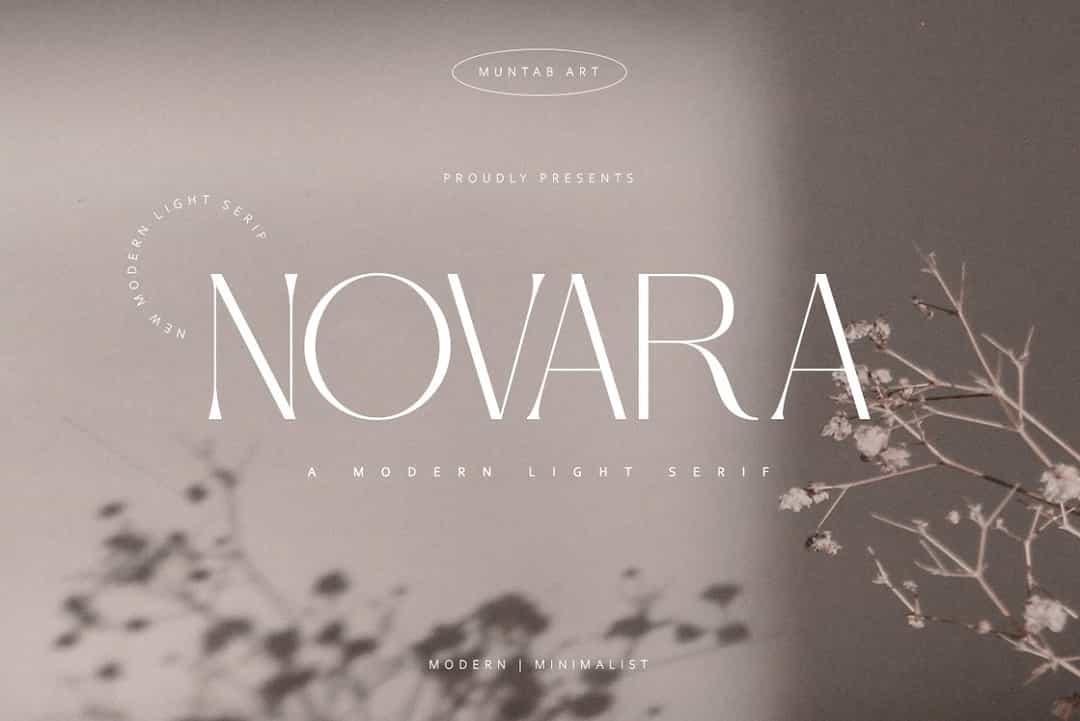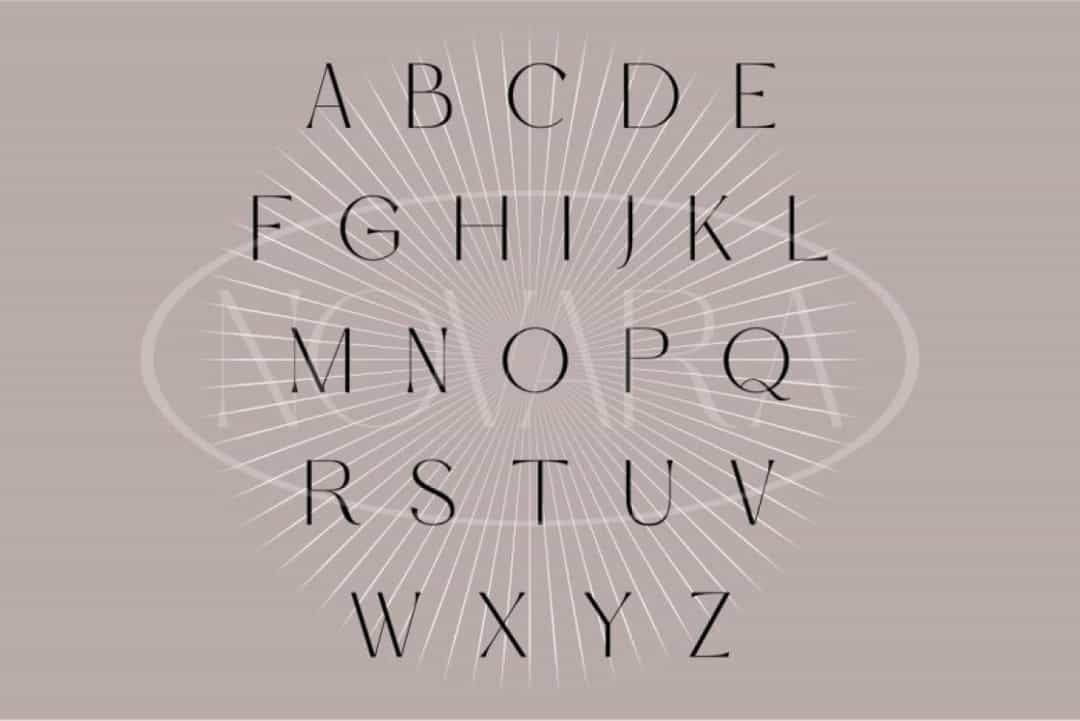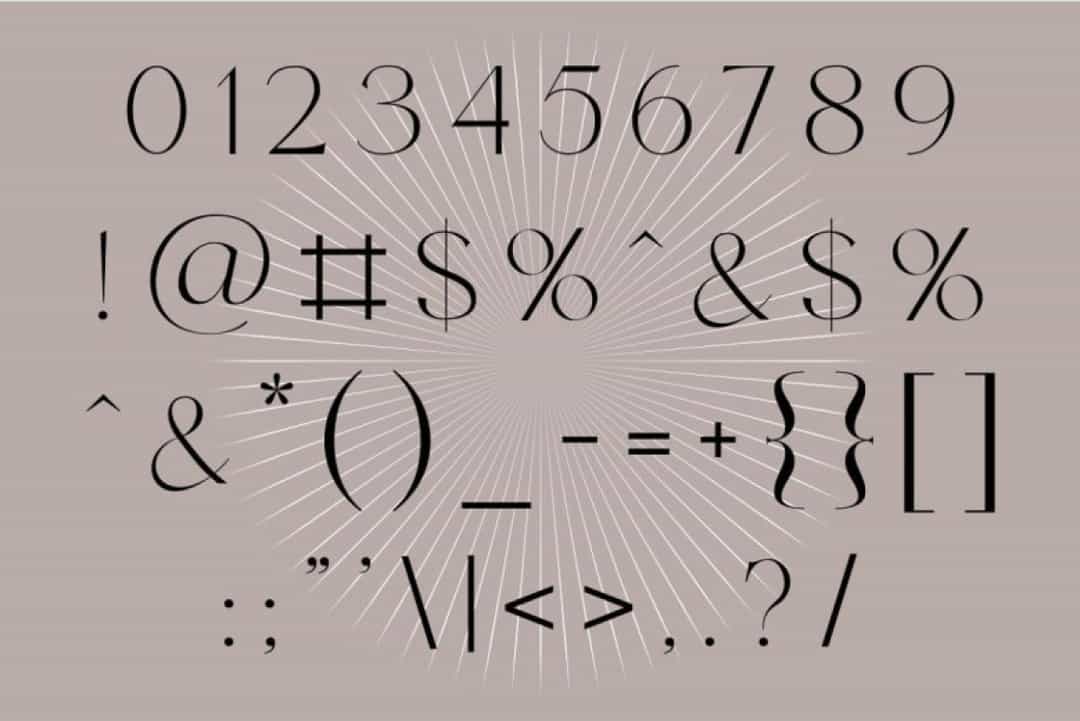
Novara Serif Fonts feature uppercase numerals and letters along with an extensive variety of punctuation. Their modern yet fashionable design makes this font suitable for posters branding, web design badges, illustrations, badges and other designs.